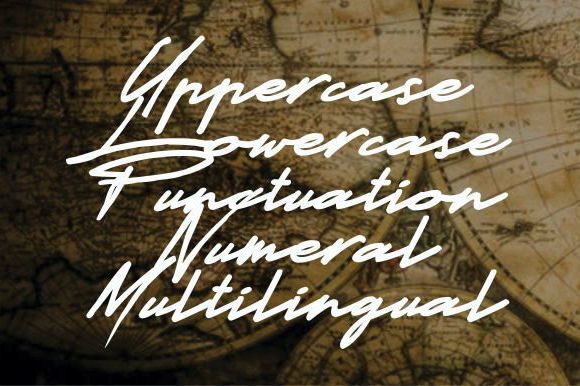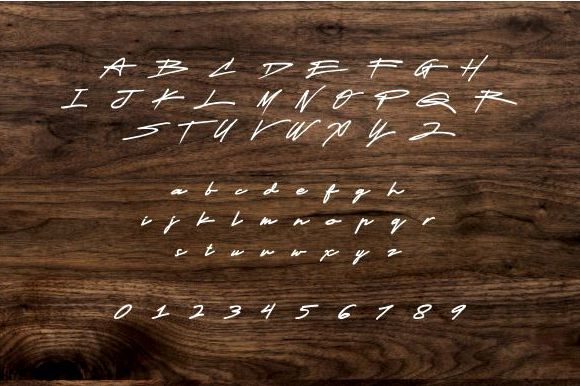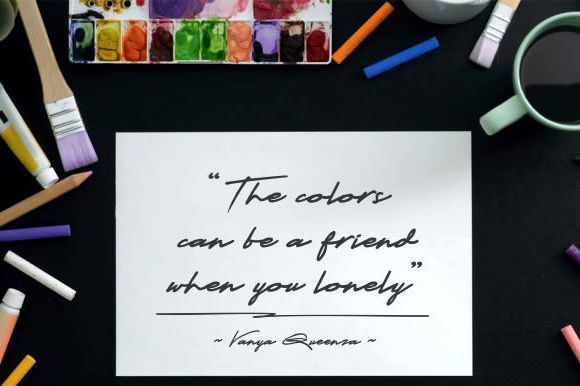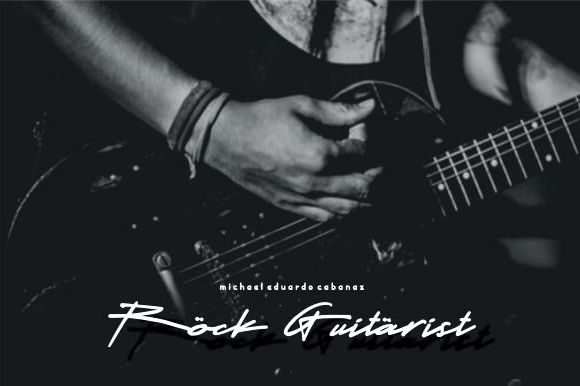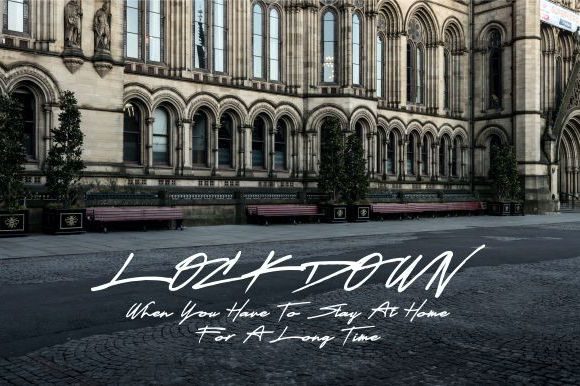
Introducing Escape Signature Font: Elevate Your Designs with Elegance
Are you on the hunt for a font that adds a touch of sophistication and elegance to your projects? Look no further than the Escape Signature Font, a beautiful, flowing handwritten font that is sure to capture your heart. With its unique blend of style and timelessness, this font is perfect for designers and crafters looking to create stunning designs that stand out from the crowd.
The Characteristics of Escape Signature Font
Escape Signature Font is described by its elegant touch, which is evident in its smooth, flowing lines and curves. This font is meticulously crafted to provide an incredibly distinct and timeless style that can be used to create spectacular designs. Whether you’re working on a logo, branding materials, or personal projects, Escape Signature Font is the perfect choice.
Why Choose Escape Signature Font?
So, what sets Escape Signature Font apart from other fonts? Here are just a few reasons why designers and crafters are falling in love with this beautiful font:
- Elegant and Sophisticated: Escape Signature Font exudes elegance and sophistication, making it perfect for high-end designs and luxury brands.
- Unique and Distinct: With its flowing lines and curves, this font has a unique and distinct style that will set your designs apart from the rest.
- Timeless: Unlike trendy fonts that quickly go out of style, Escape Signature Font has a timeless quality that ensures your designs will remain stylish for years to come.
- Versatile: This font can be used for a wide range of projects, from logos and branding materials to invitations, packaging, and more.
How to Use Escape Signature Font
Escape Signature Font is incredibly easy to use, even for those who are new to design. Here are a few tips to get you started:
- Pair it with Other Fonts: Escape Signature Font pairs beautifully with other fonts, creating a stunning contrast that adds depth and interest to your designs.
- Experiment with Colors: This font looks great in a variety of colors, from bold and bright to soft and pastel.
- Play with Sizes: Escape Signature Font can be used at a range of sizes, from small and delicate to large and dramatic.
Escape Signature Font is a must-have for designers and crafters who want to create stunning designs that showcase their creativity and style. Whether you’re working on a personal project or a client’s brief, this font is sure to impress.
For designers, Escape Signature Font is perfect for:
- Logo Design: Create a stunning logo that showcases your brand’s personality and style.
- Branding Materials: Use this font to create business cards, letterheads, and other branding materials that exude elegance and sophistication.
- Web Design: Add a touch of elegance to your website with Escape Signature Font, perfect for headings, titles, and more.
For crafters, Escape Signature Font is perfect for:
- Invitations: Create beautiful invitations for special occasions, such as weddings, birthdays, and baby showers.
- Packaging: Add a touch of elegance to your packaging with Escape Signature Font, perfect for product labels, gift tags, and more.
- Journaling: Use this font to add a personal touch to your journal or diary, making it a treasured keepsake.
| Font Name | Escape Signature Font |
| Author | Niznaz Graphic Studio |
Escape Signature Font is a beautiful, elegant, and sophisticated font that is perfect for designers and crafters looking to create stunning designs. With its unique and distinct style, timeless quality, and versatility, this font is sure to become a favorite in your design arsenal. So why wait? Fall in love with Escape Signature Font and elevate your designs to new heights!